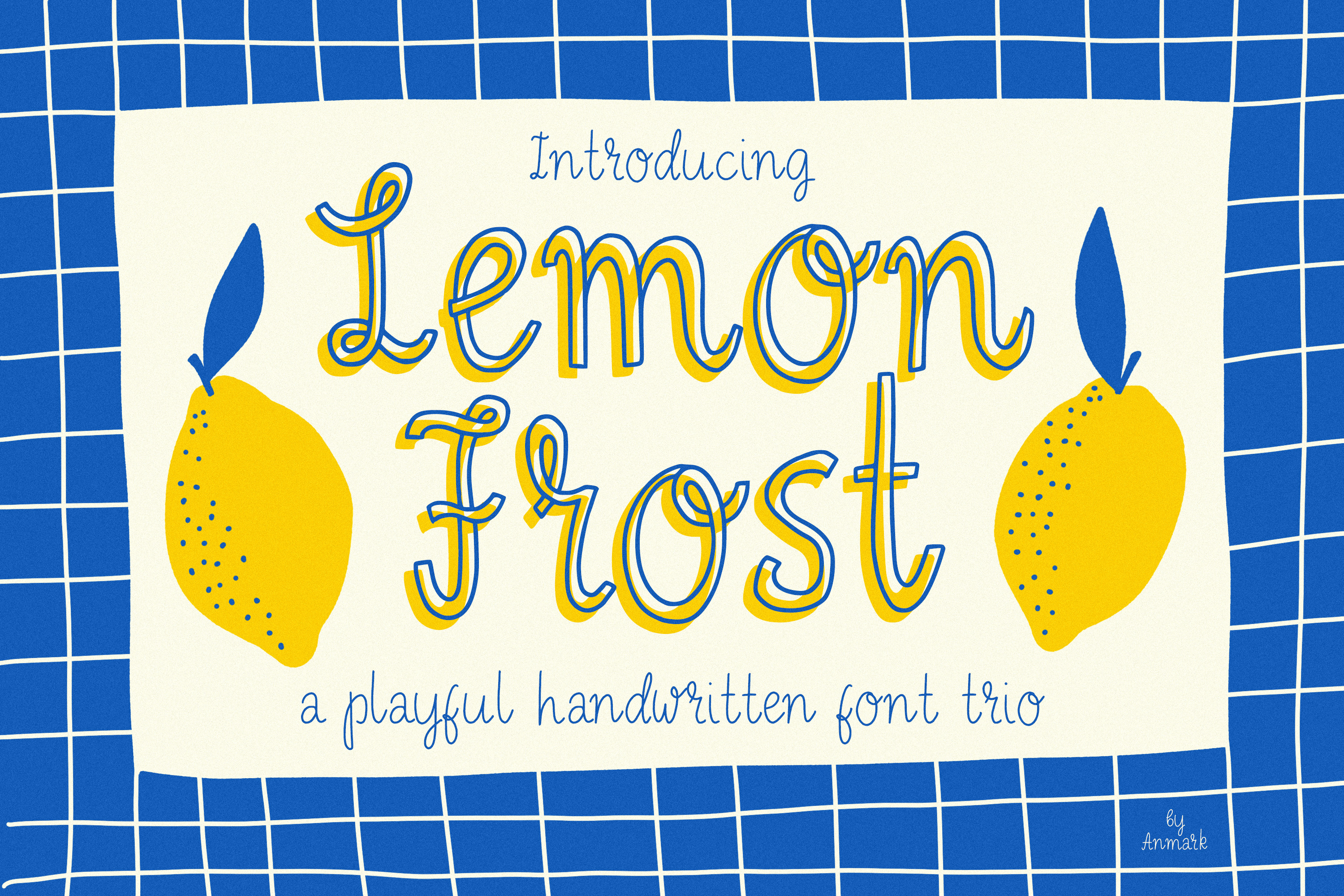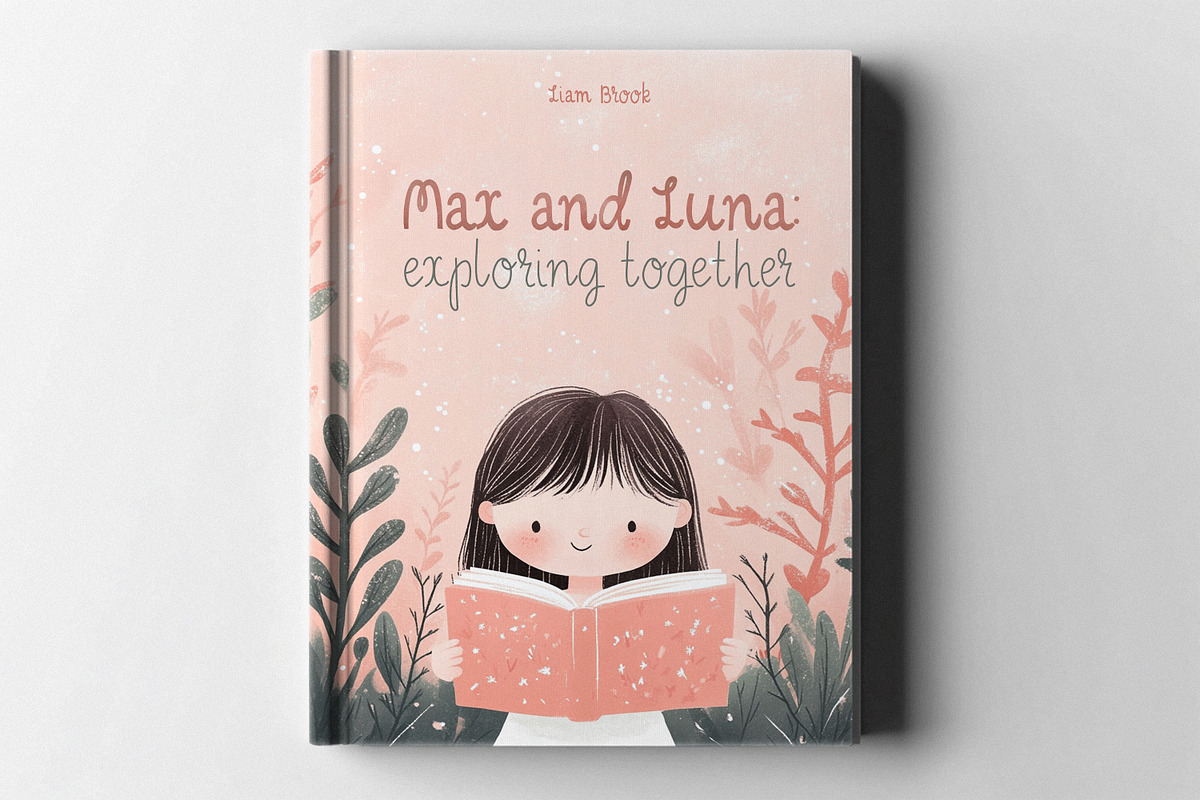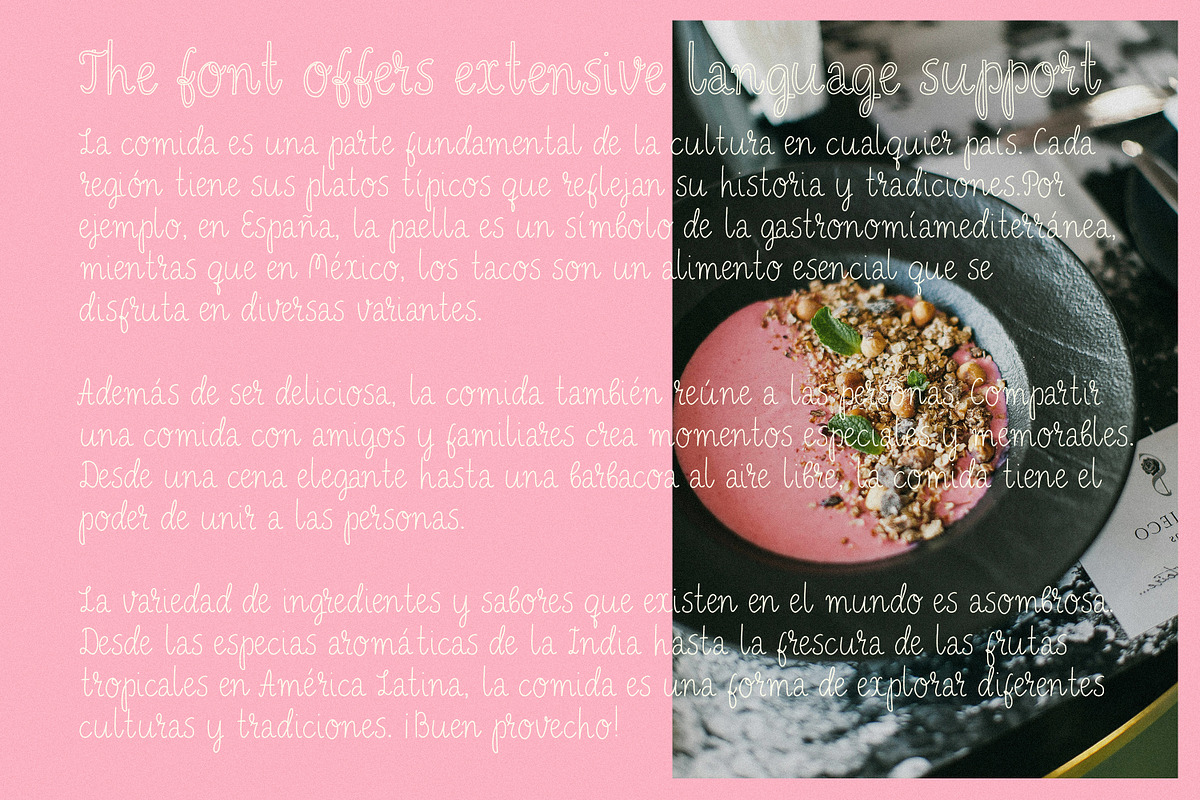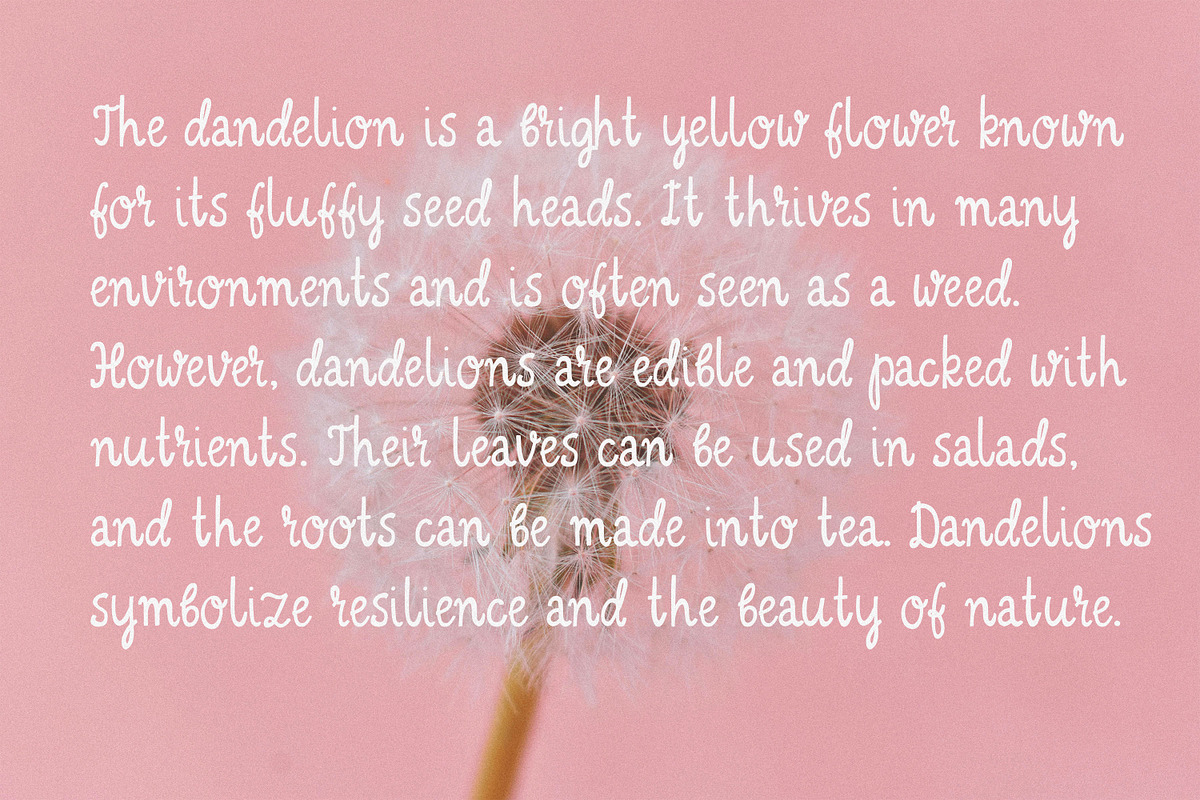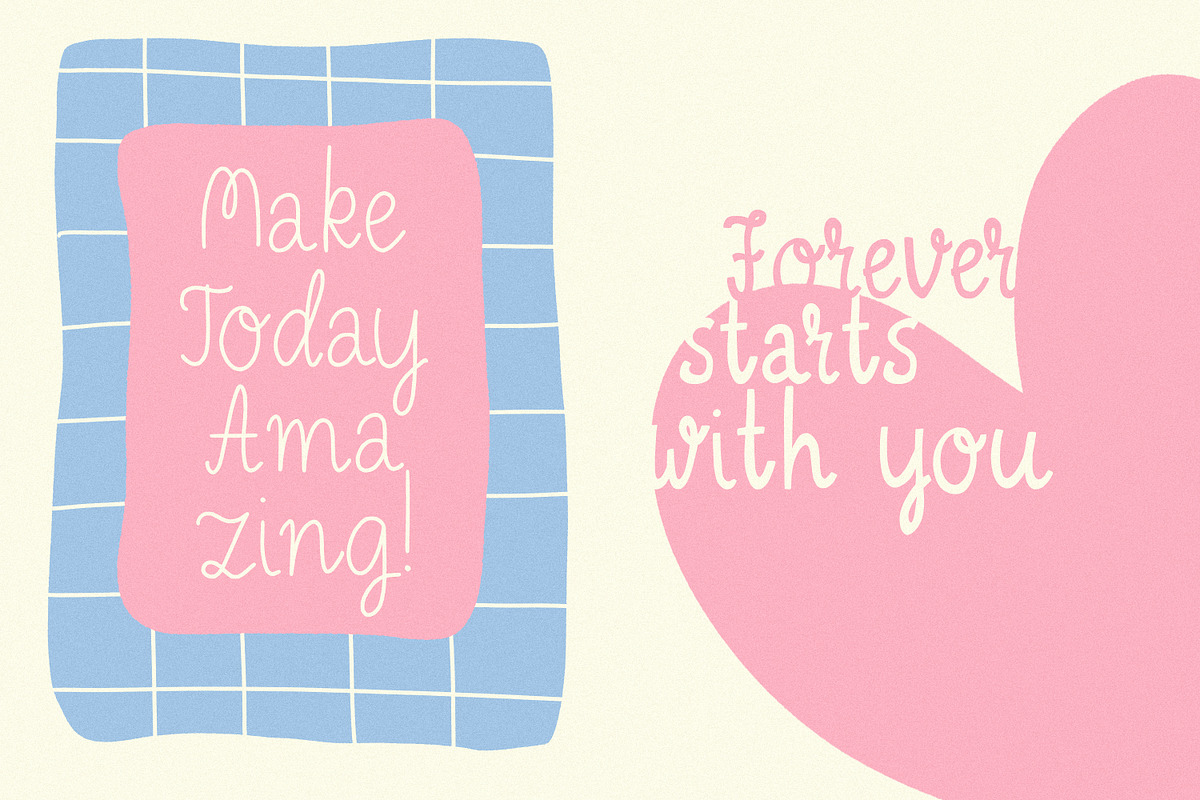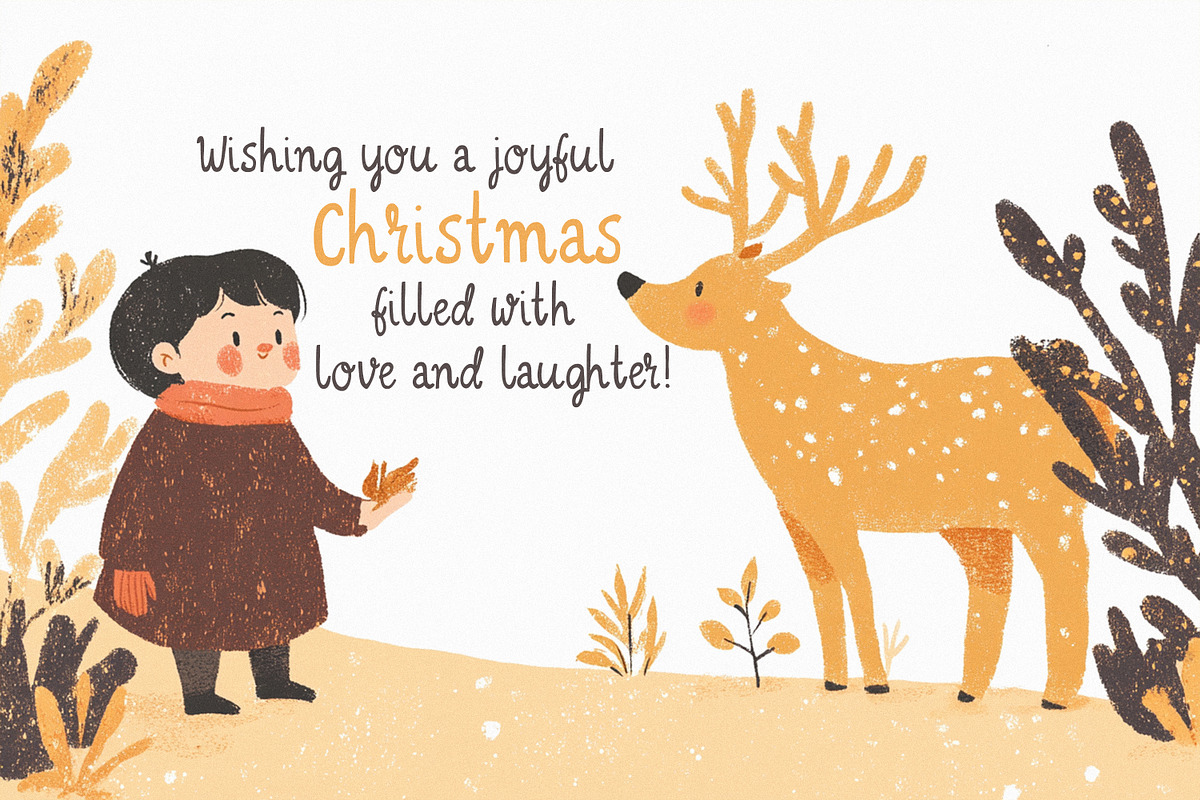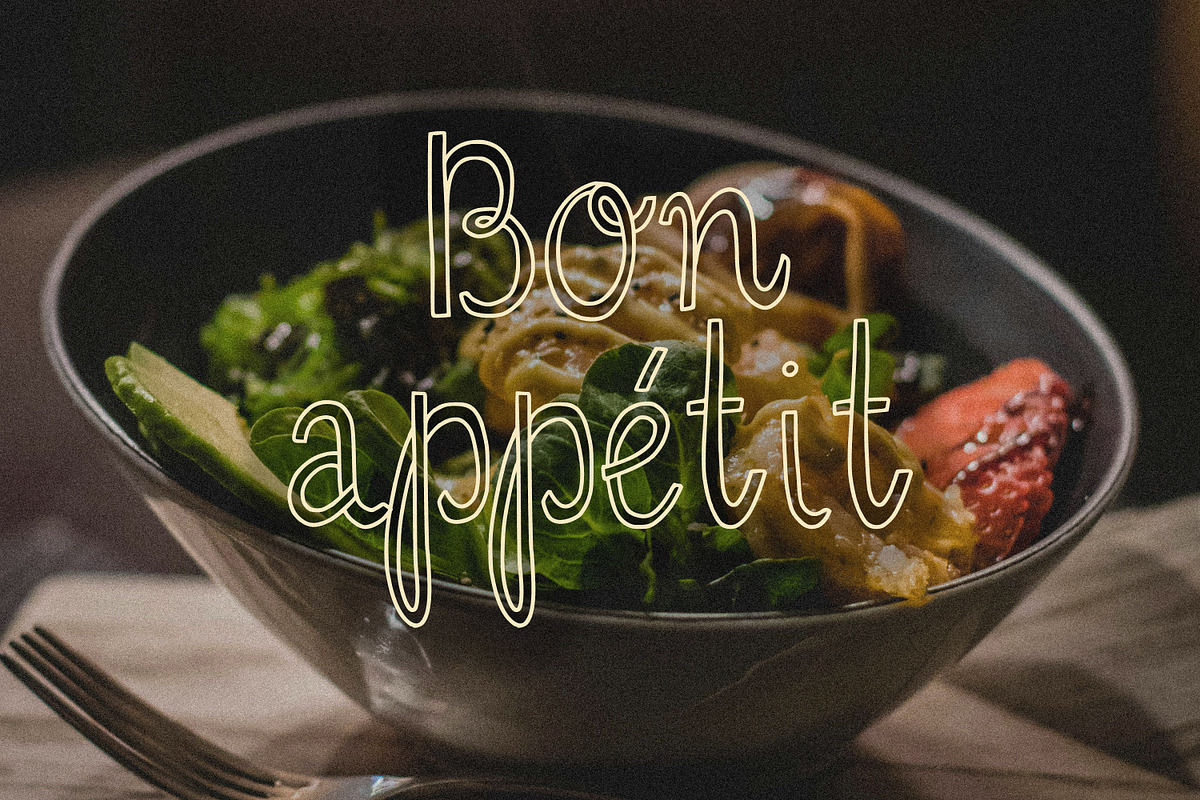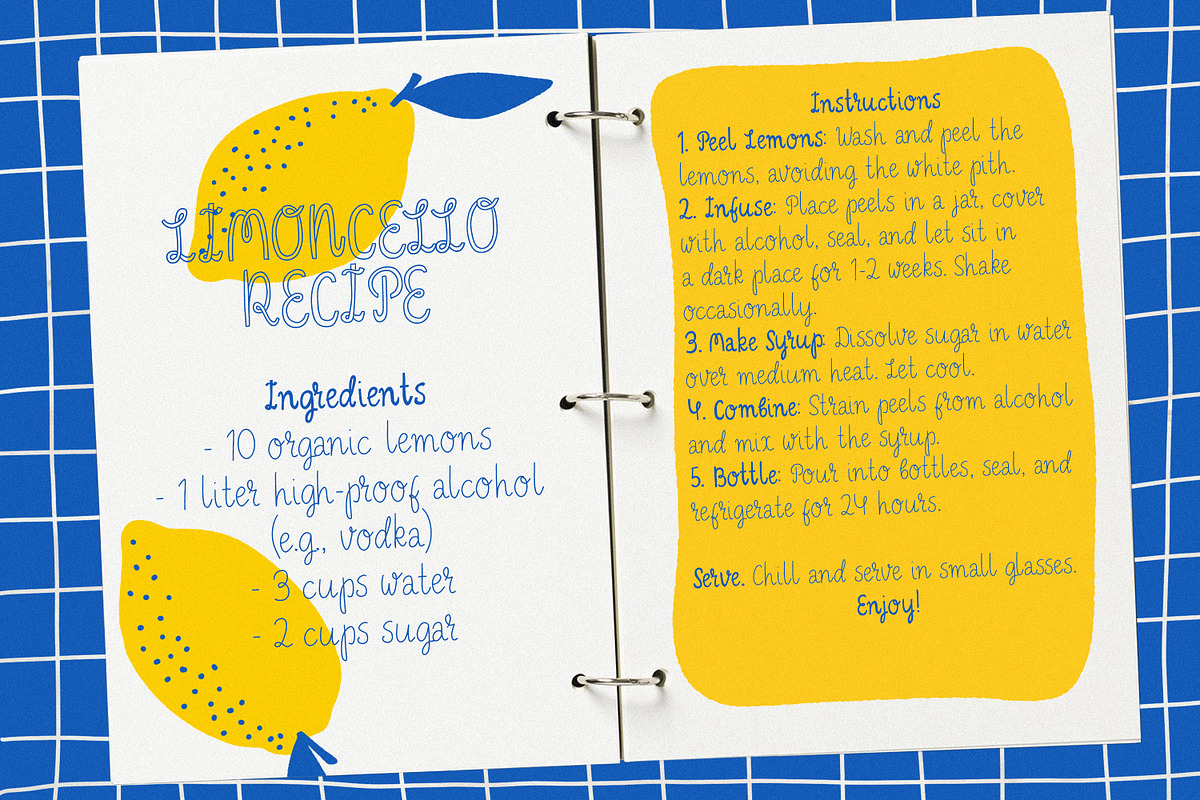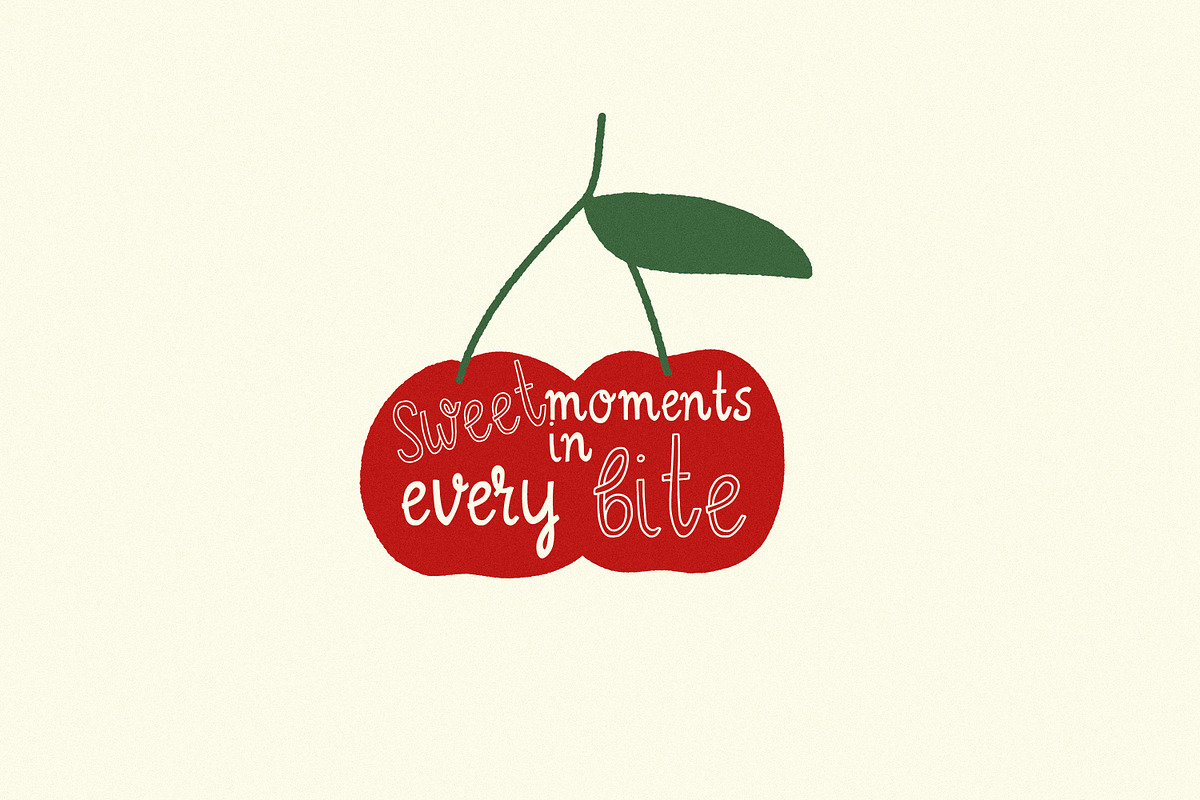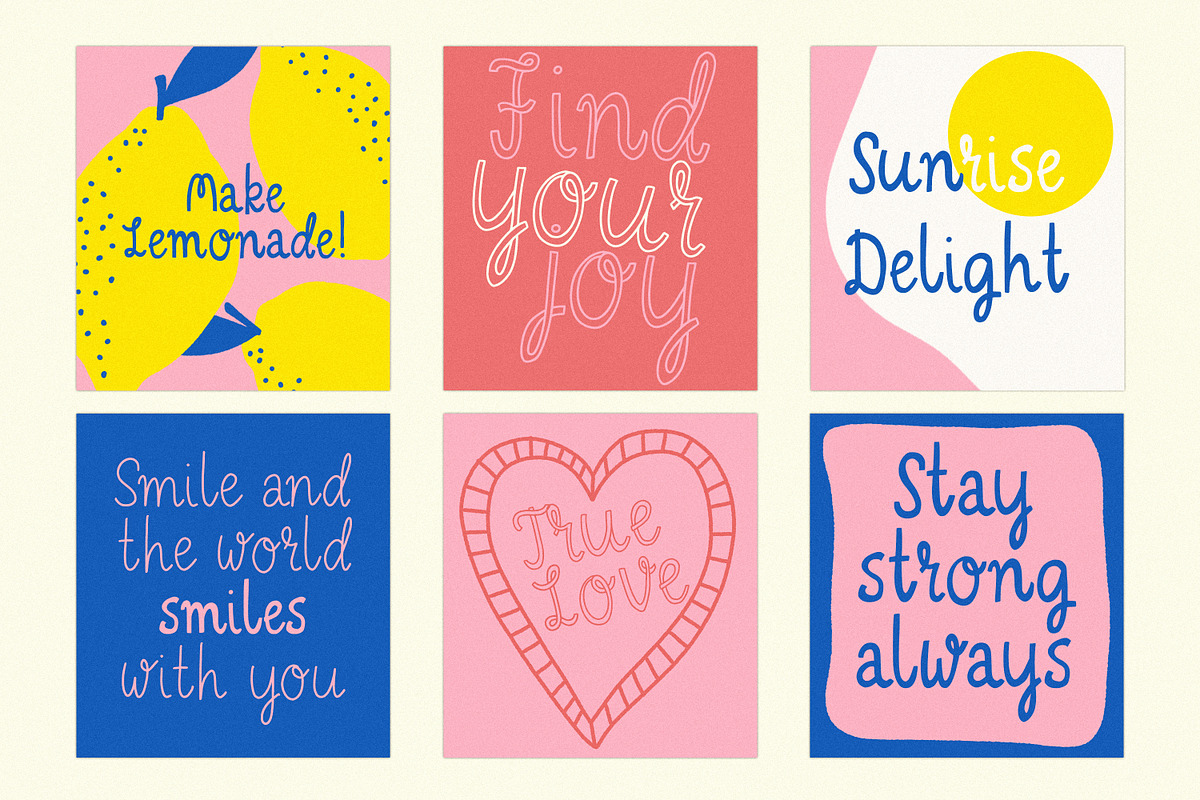
Lemon Frost Playful Font TRIO
Discover Lemon Frost, a delightful font family that stands out with its playful and whimsical charm. Featuring three unique handwritten styles—Regular, Bold, and Outline—that complement each other perfectly, this font adds a touch of creativity to posters, wedding invitations, menus, and more. Whether you're designing a book cover or crafting eye-catching graphics, Lemon Frost brings a fun and stylish flair to every project. Let your creativity shine with this extraordinary font!
In addition to its playful personality, the Lemon Frost fonts also boast multilingual capabilities. They seamlessly support a variety of languages, including English, Spanish, French, German, Portuguese, Italian and much more. This makes the font family an adaptable choice for a wide range of international projects and global audiences.